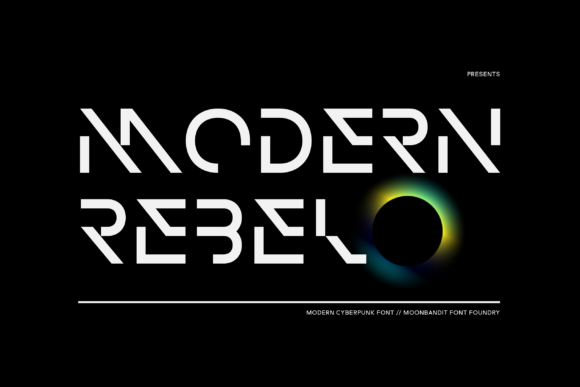
Prepare to be captivated by Modern Rebel Font, a display font that oozes coolness, modernity, and geometric flair. This is not just any font; it's an artistic masterpiece designed to make your creations shine. Its striking, distinct structure and pristine edges will add a touch of sophistication and edge to your designs, leaving a lasting impression on anyone who encounters them.
Unleash your creativity and let Modern Rebel Font take center stage in your posters, flyers, prints, and digital designs. Its versatility knows no bounds, effortlessly adapting to a wide range of projects and styles. Whether you're a seasoned designer or just starting your creative journey, Modern Rebel Font will elevate your work to new heights.
Experience the power of typography with Modern Rebel Font. Its crisp lines and sharp angles command attention, while its balanced proportions ensure readability and visual appeal. Say goodbye to boring, mundane fonts and embrace the boldness and uniqueness of Modern Rebel. Stand out from the crowd and make a statement with every design you create.
Picture this: your designs adorned with the elegance of Modern Rebel Font, captivating audiences with its clean, contemporary aesthetic. Imagine the impact it will have on your posters, leaving passersby mesmerized and eager to learn more. Envision your flyers exuding professionalism and sophistication, attracting potential customers like moths to a flame.
With Modern Rebel Font at your disposal, the possibilities are truly endless. Transform your reports into visually captivating documents that demand attention. Create presentations that resonate with your audience, leaving them inspired and engaged. Design social media posts that break through the noise and capture the hearts of your followers.
Don't settle for ordinary fonts that blend into the background. Choose Modern Rebel Font and watch as your designs take on a life of their own. Elevate your brand identity, captivate your audience, and leave an indelible mark on the world of design. Embrace the Modern Rebel spirit and unlock the full potential of your creative vision.